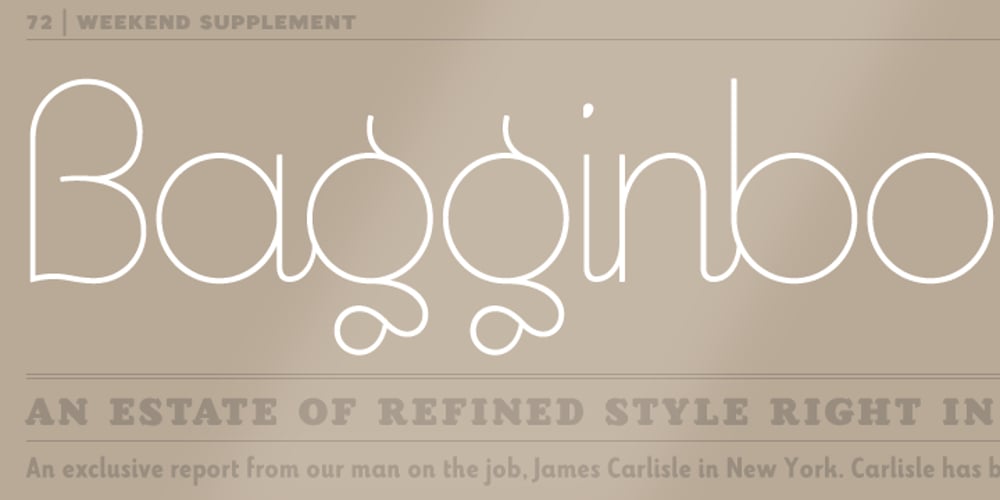
Bisque Font Family was designed by Niels Oeltjen and published by Letterbox. Bisque contains 2 styles and family package options. Bisque is designed with a sense of play and rhythm, with intermittent areas of quietness, bringing a sense of ‘bounce’ to text. The combination of classic typographic forms and proportions with expressive, contemporary features create a typeface with charisma and joy. The 2011 revision involved adding an extended glyph set for much wider setting applications.